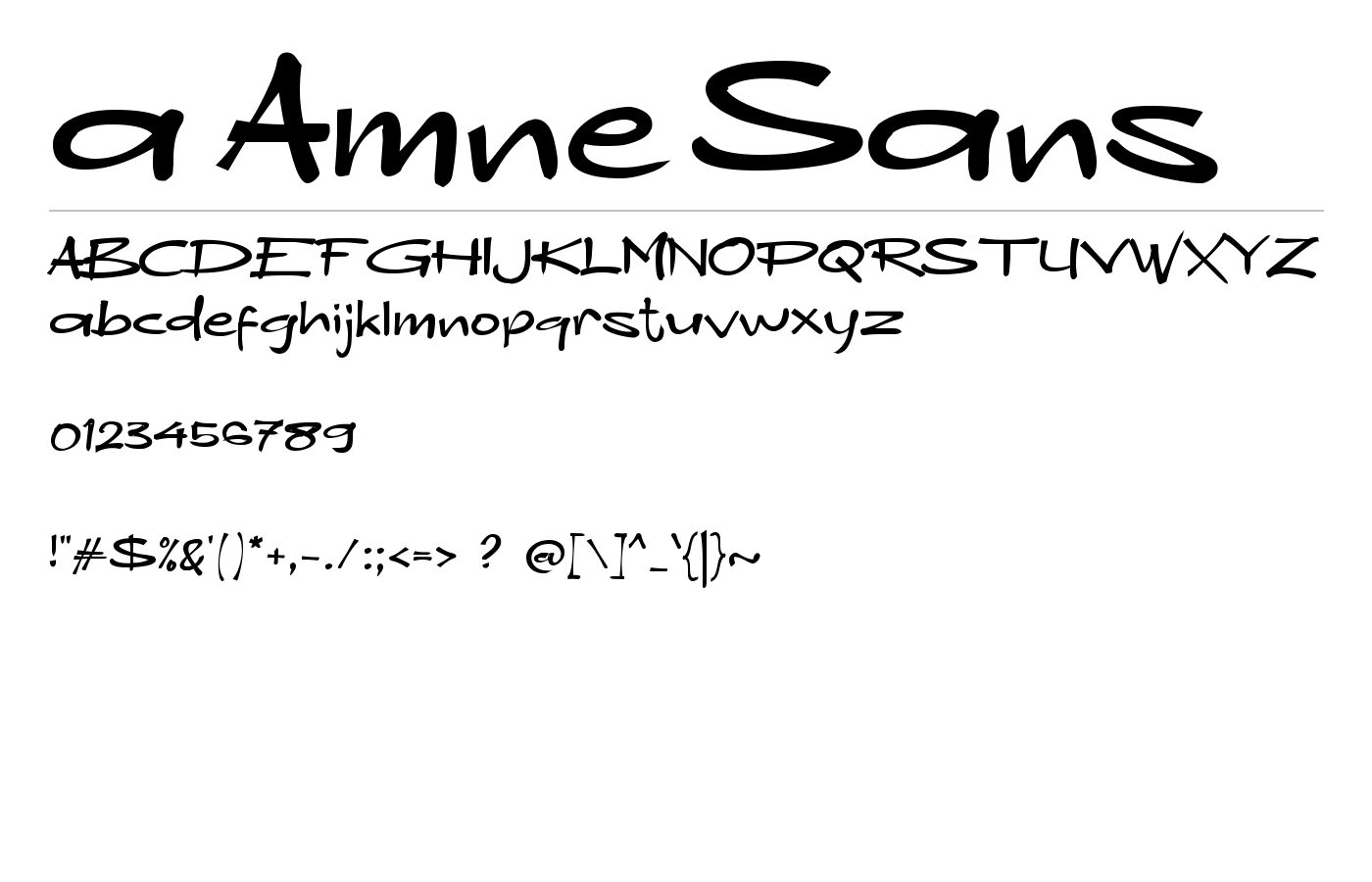
Amne Sans is a playful and casual sans serif font with a hand-drawn feel, featuring irregular and slightly quirky letterforms that create a relaxed, approachable vibe. Its light weight and moderate width, combined with smooth, slightly curved strokes and a mix of single and double-story characters, make it ideal for informal branding, children's books, or creative projects that want to feel friendly and energetic. This font works best in headlines, logos, and other display uses where personality and warmth are key.
a Amne Sans Font